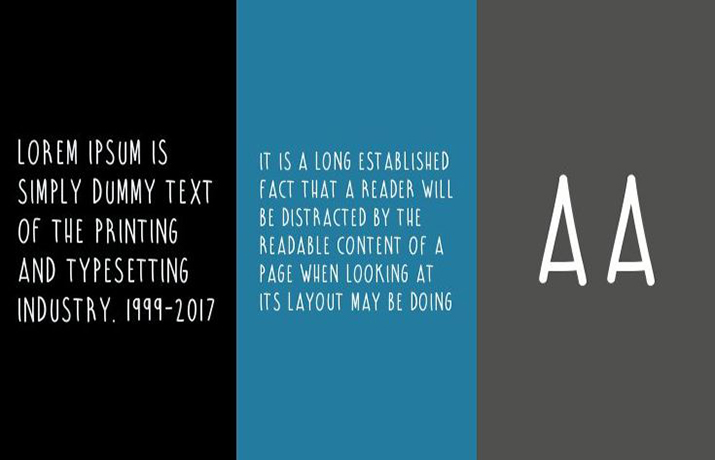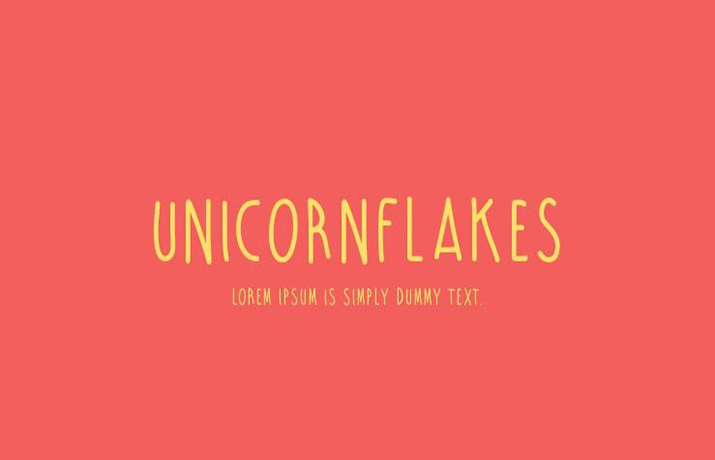
Unicorn Flakes Font is a skinny handwriting typeface that has everything you want in a thin font. It is especially great for making poster titles, flyer designs, and more.
This typeface helps to make it cooler adding a personalized touch to any design. Because it has a clean texture along with a feminine feel.
It has come in a single regular style that possesses Truetype features. This single style has 192 characters along with 1000 units per em.
This font has a sweet design that you can use with everything from greeting cards, banner designs, labeling, brochure layouts, watermarks on photography, shopping bags, magazines, shopping bags, and more.